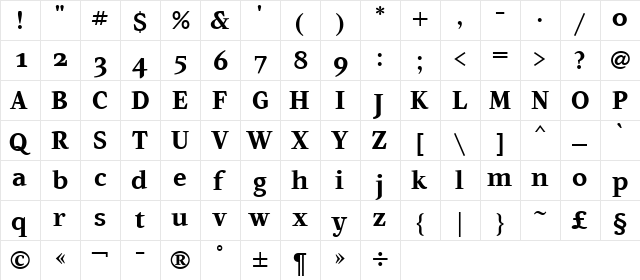
Artemius SN TT Bold
Design Context for Artemius SN TT Typeface
Artemius SN TT offers clean, dependable letterforms without strong stylistic allegiance, making it a practical choice for designers who need flexibility. The heavy weight commands attention and anchors typographic hierarchies.